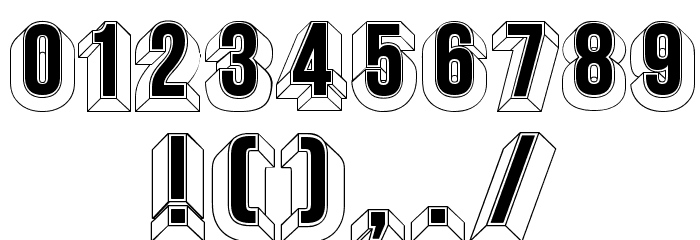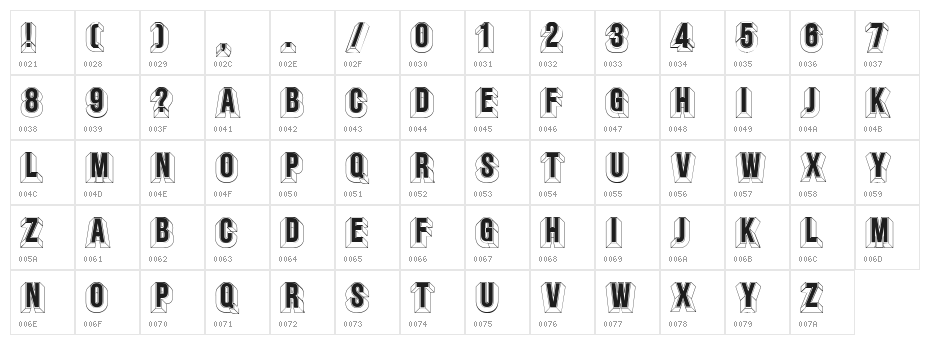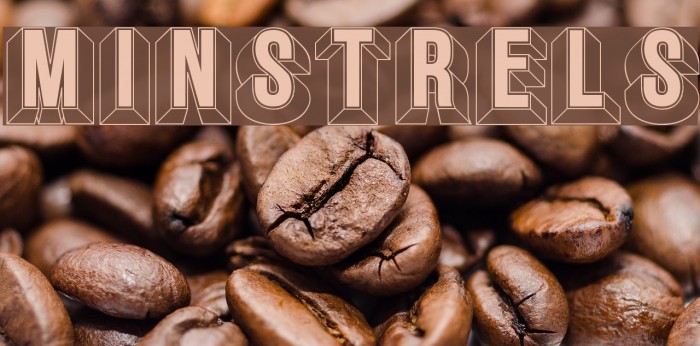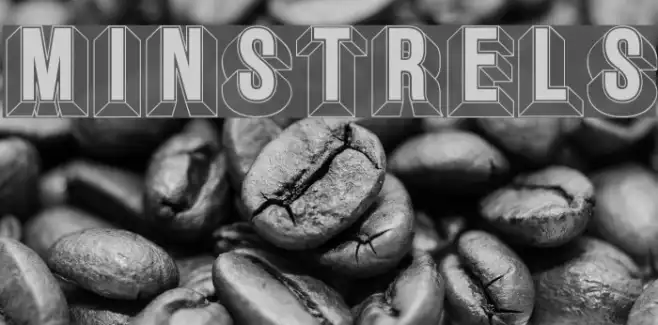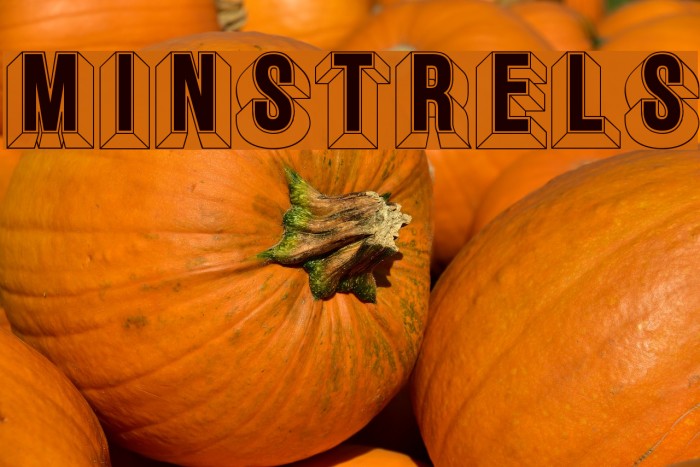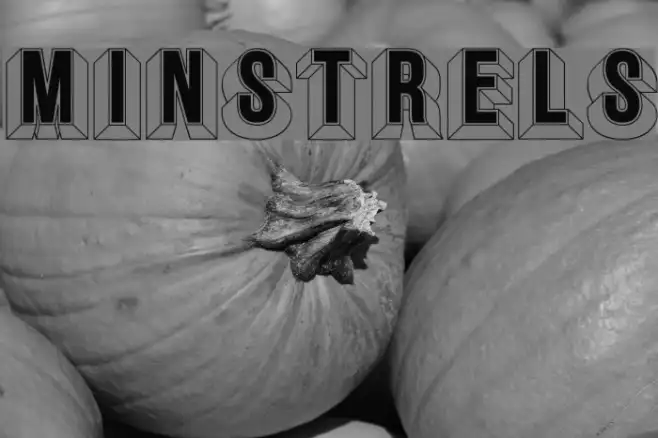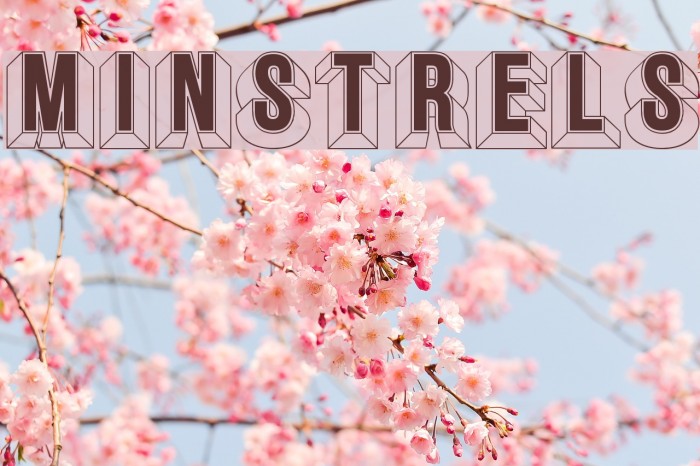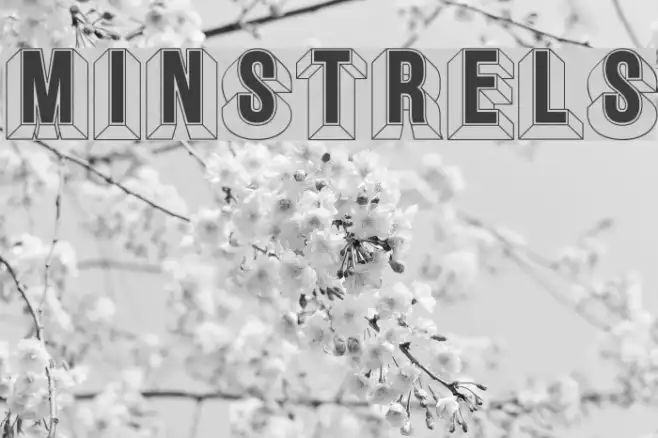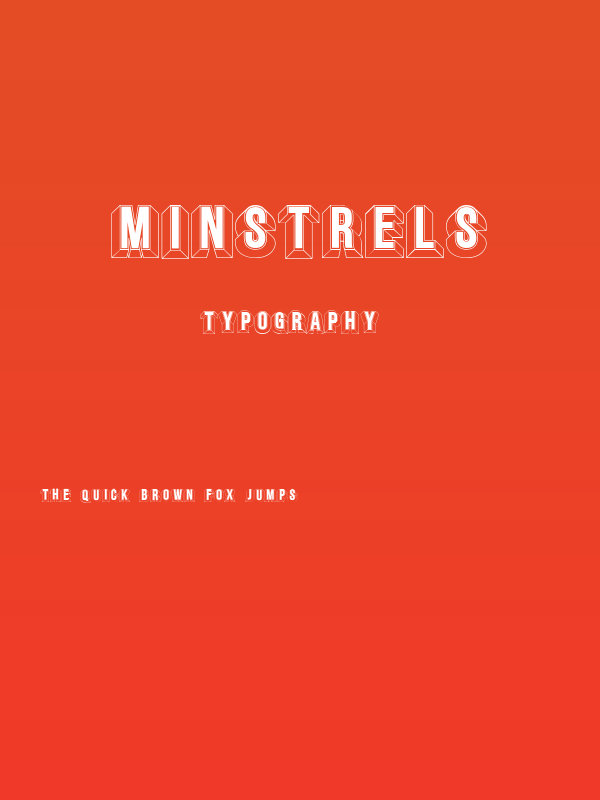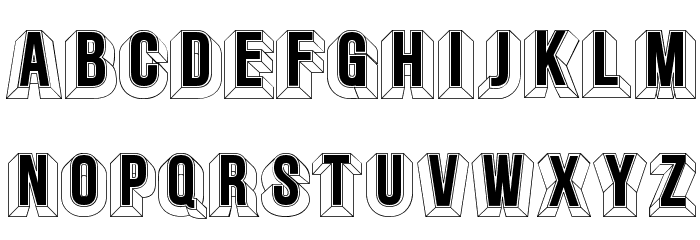
Minstrels Font
Minstrels Description
This font features a bold, three-dimensional design with a strong, impactful presence. The letters are capitalized and outlined, creating a shadow effect that gives depth and a sense of movement. The strokes are thick and consistent, enhancing the boldness and making it ideal for attention-grabbing headlines. The geometric structure of each character is precise, with sharp angles and clean lines that contribute to a modern and dynamic appearance. This font's unique style is both decorative and functional, making it suitable for various creative projects.
| Proposed Projects | Ideal for posters, logos, branding, and any design requiring a strong visual impact. |